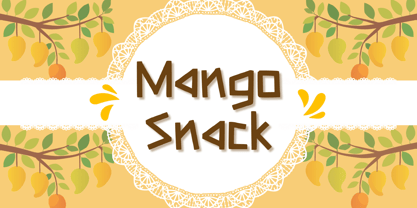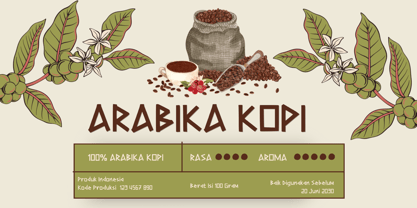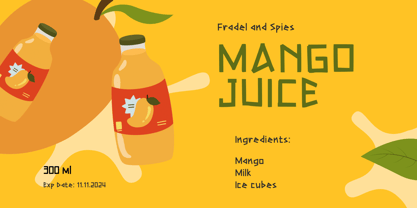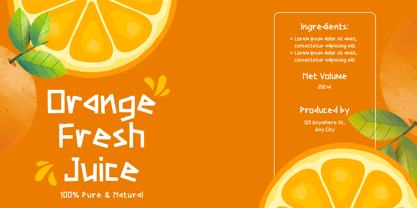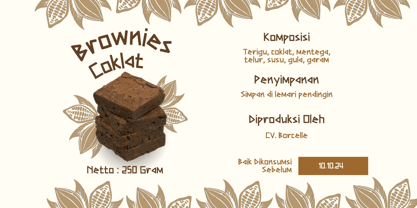
Mango Snack
by Aisyah
The Mango Snack Font Family was designed by Nur Aiysah Amalia and published by Aisyah. Mango Snack contains 1 styles. More about this family
Add a burst of tropical flavor to your designs with Mango Snack, a playful and quirky display font that radiates sunshine and fun. This Mango Snack typeface features irregular, hand-cut letterforms with a bouncy rhythm, making it perfect for food packaging, children’s menu designs, and summer-themed branding. Its chunky, friendly appearance is designed to be approachable and eye-catching, ideal for grabbing attention in a crowded retail environment. The Mango Snack font is a fantastic choice for juice bar logos, organic snack labels, and vibrant social media content. This Mango Snack typeface pairs wonderfully with bright citrus colors and illustrative fruit patterns to create a cohesive, energetic look. Use it for birthday party invitations, school event flyers, or any project that needs a touch of handcrafted, “snackable” joy. Its unique character shapes ensure that your headlines feel custom and full of personality, bringing a smile to anyone who sees them.
Designers: Nur Aiysah Amalia
Foundry: Aisyah